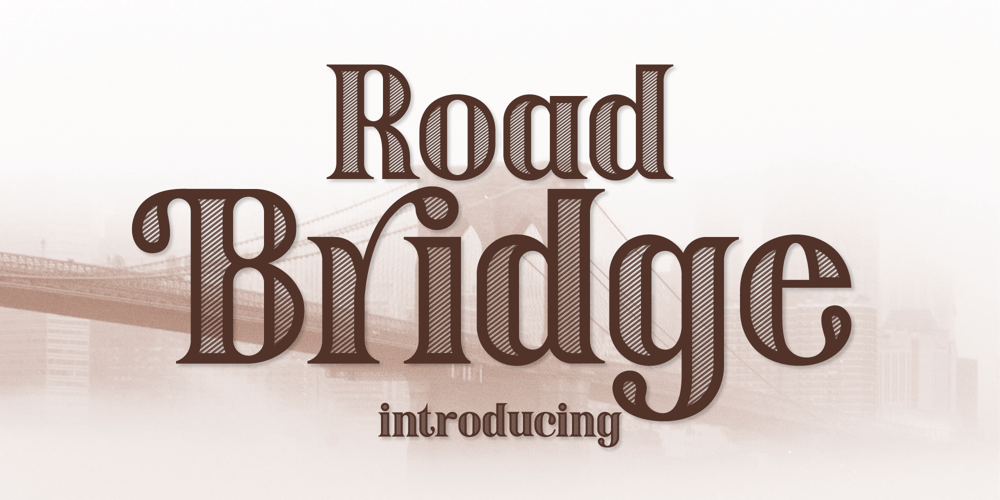
Road Bridge Font Family was designed by Rattana Rattanawan and published by Fox7. Road Bridge contains 1 styles and family package options. Designed to be versatile, the Road Bridge font is a great choice for any type of project. Compatible with both modern and vintage design styles. You can use it for various projects, such as blog posts, logos, branding, ads, invitations, greeting cards, planners, photo albums, decorations, and much more.